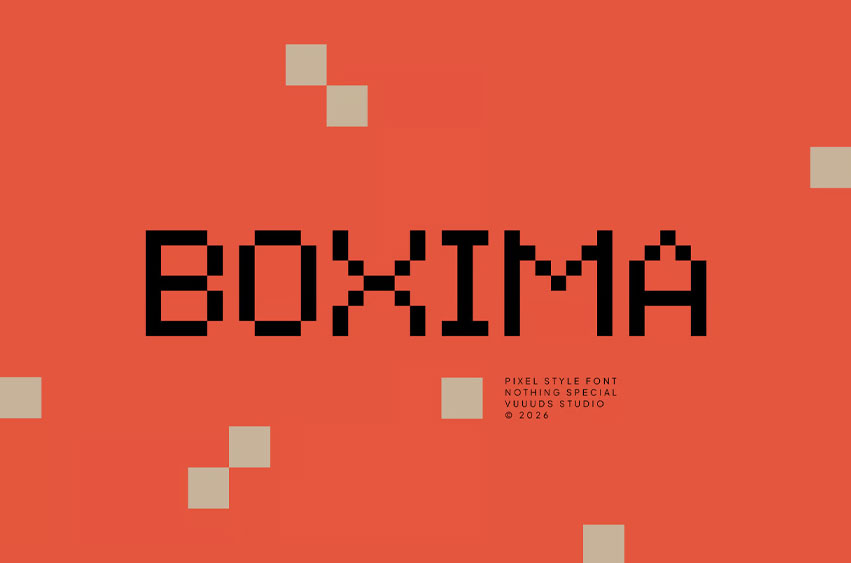
Boxima Font
Boxima Font is just another pixel font, every single letters have been uniquely crafted. This font including beautiful alternate glyph.
Multi languages support: ÀÁÂÃÄÅÆÇÈÉÊËÌÍÎÏÐÑÒÓÔÕÖØÙÚÛÜŸÝ àáâãäåæçèéêëìíîïðñòóôõöøùúûüýÿ ©